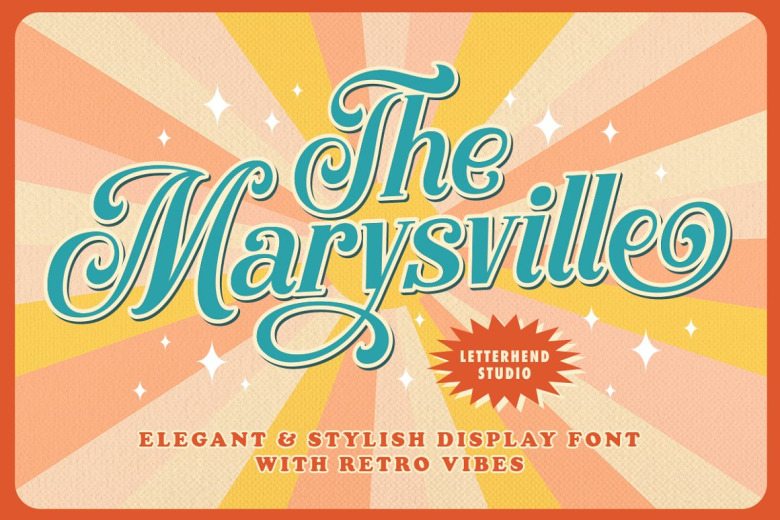
The Marysville Font
The Marysville is a retro script that evokes the spirit of the 1960s.This typeface is crafted for use in logos and other formal forms such as invitations, labels, magazines, books, greeting or wedding cards, packaging, fashion, make-up, stationery or novels or any type of advertising purpose.